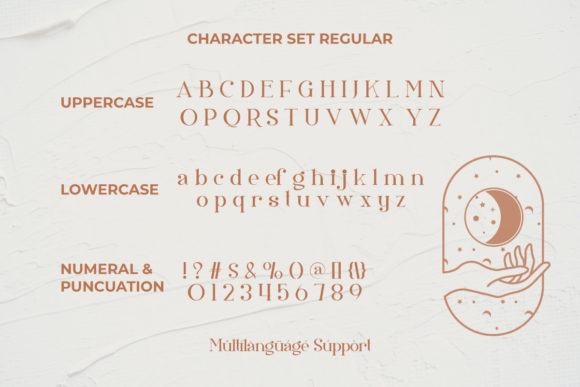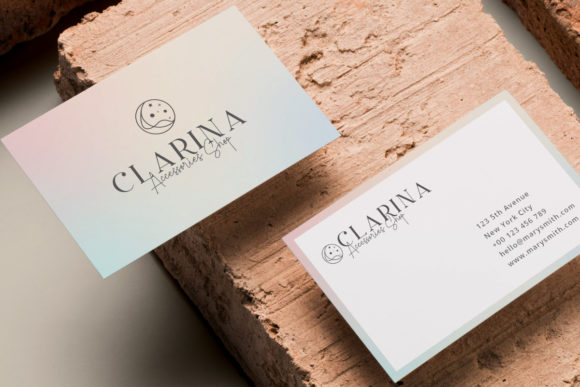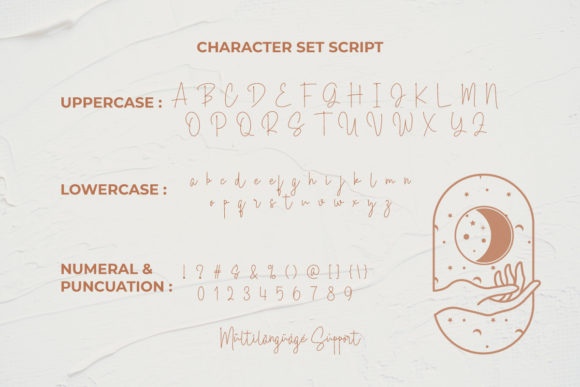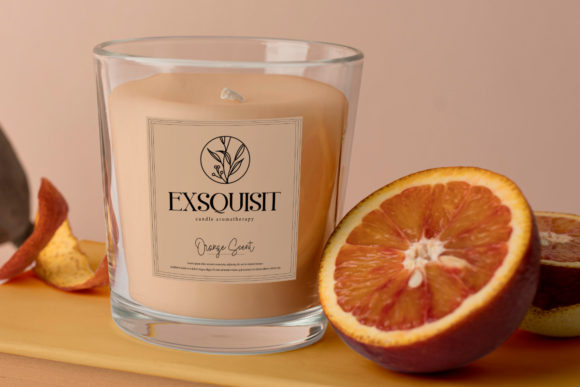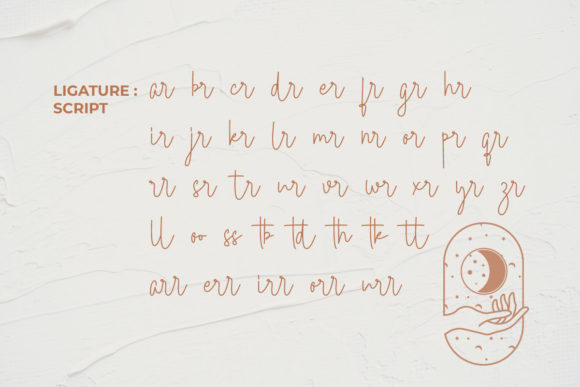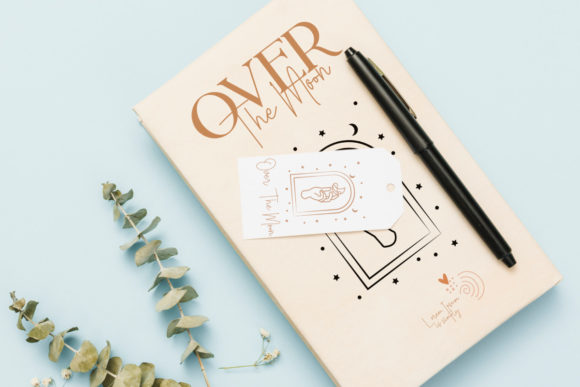
Saturday Moon Font
Saturday Moon is a modern and elegant duo font (script and serif.) The Script font includes ligatures to make everything look totally hand-done and alternates for each letter. The Serif font has special rounded characters (moon/lunar) to bring differentiation to your designs!
Saturday Moon is a handmade, beautiful, high fashion duo font that is awesome for logos, posters, wedding invitations, blog posts, social media, and more.